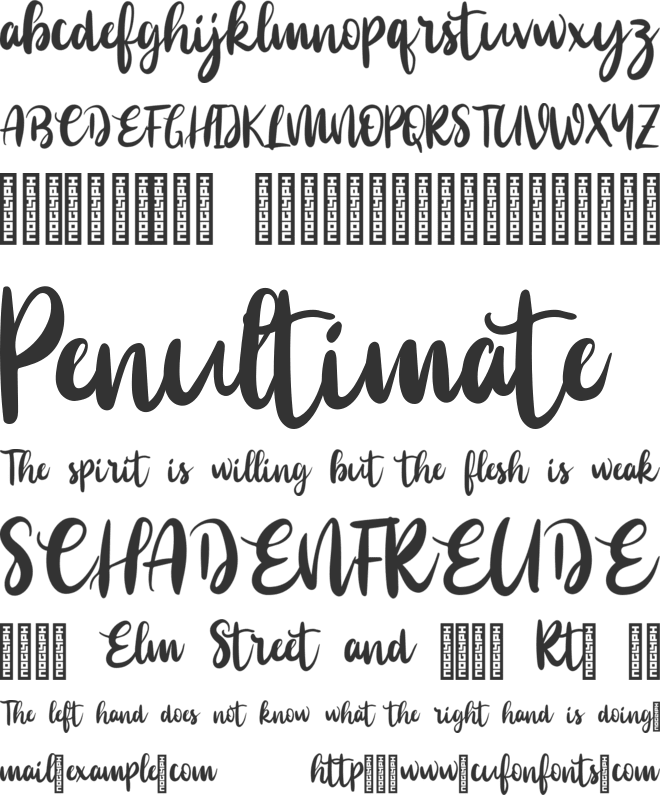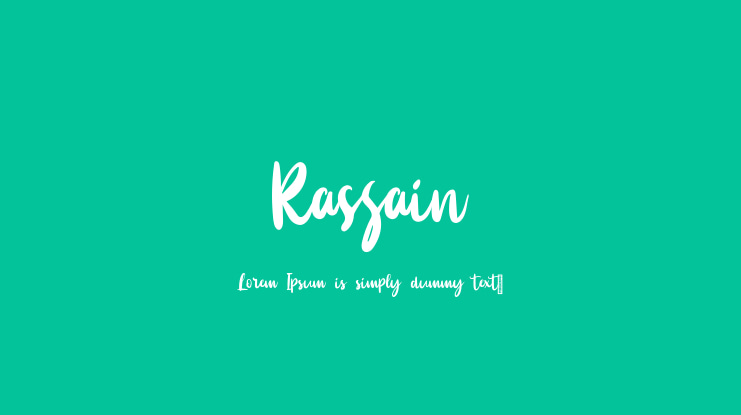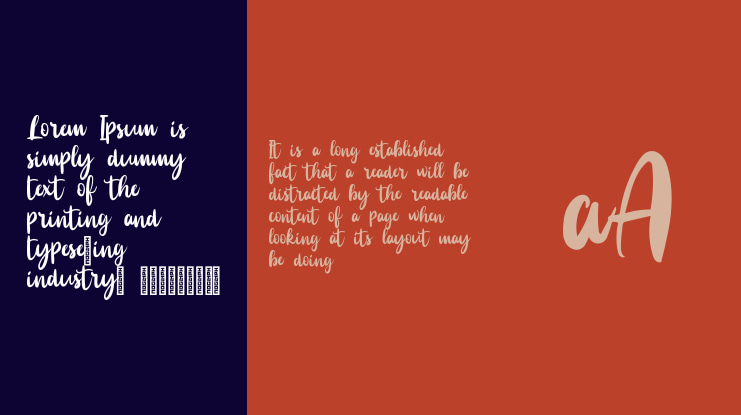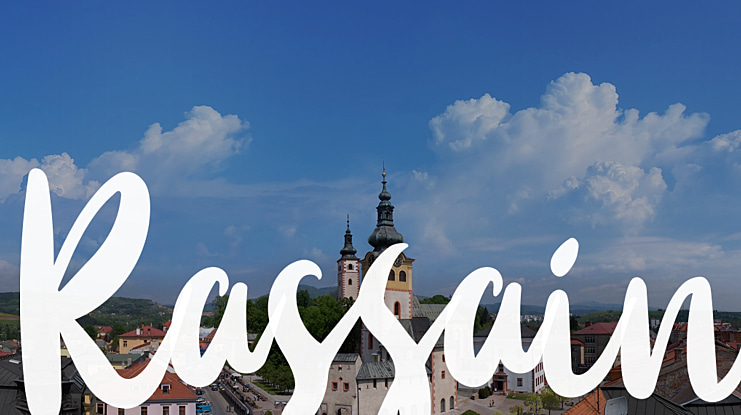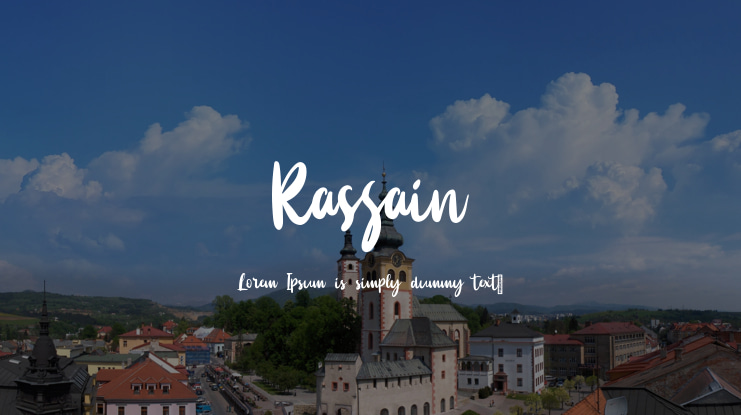
Rassain Font
Introducing, Rassain typeface. 100% handmade, so you could feel the organic flow on it. This font will suitable for your many design needs. From branding , packaging, invitation etc.